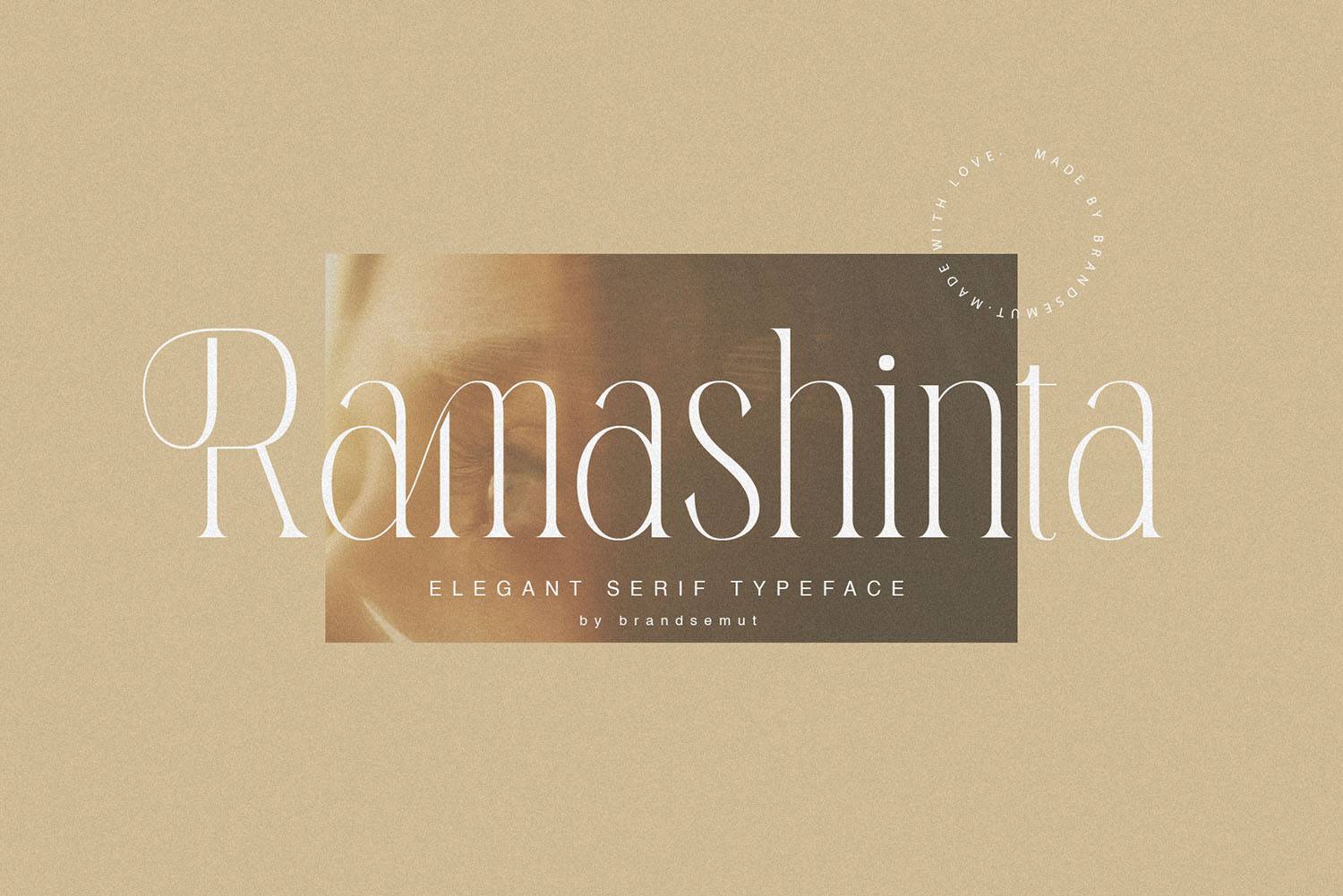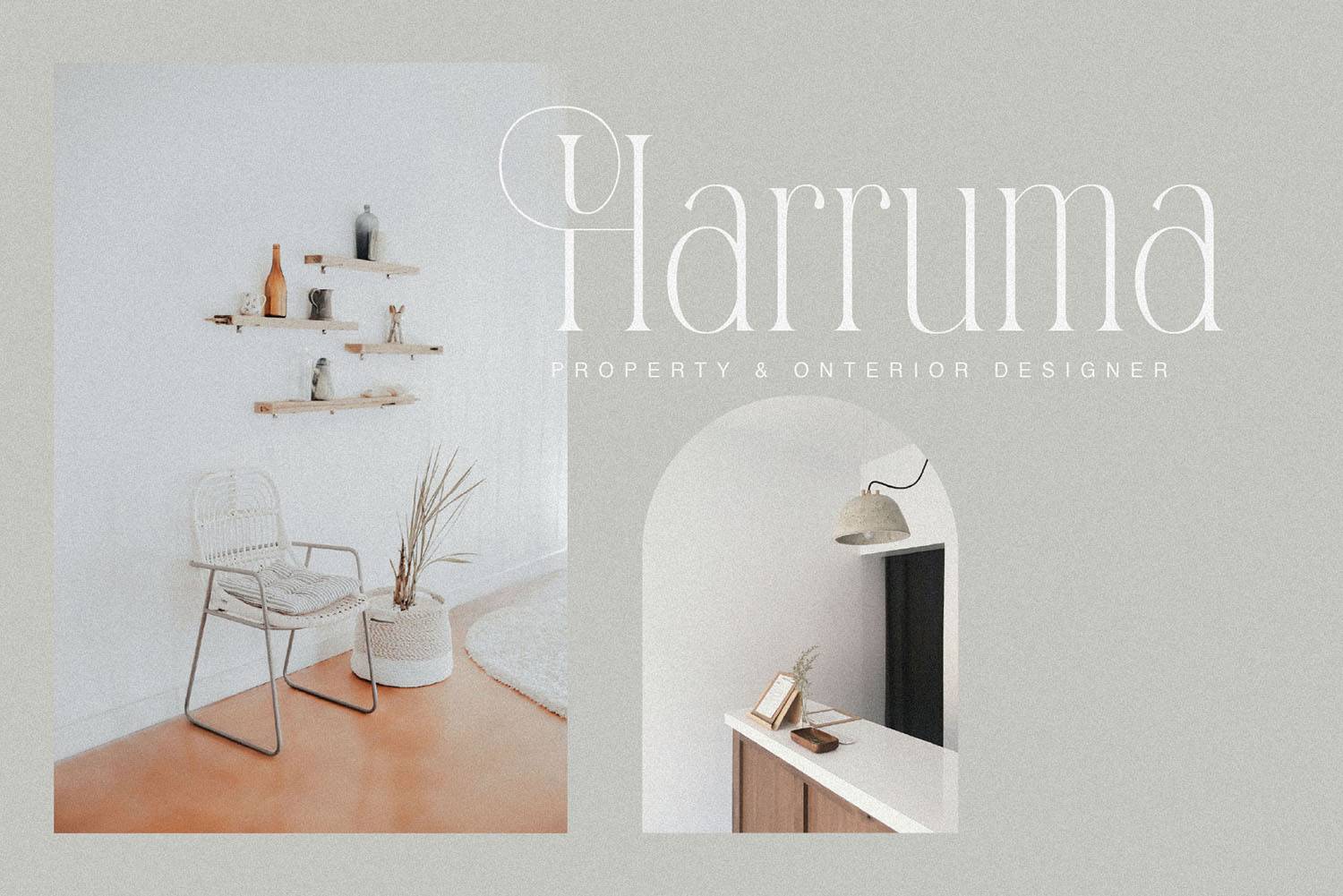
Ramashinta is an elegant serif font characterized by its tall, ultra-thin letterforms and high contrast between thick and thin strokes, giving it a refined and sophisticated appearance. Its delicate serifs and elongated proportions make it ideal for luxury branding, fashion editorials, and upscale headlines where a modern yet classic feel is desired. This font works best in large sizes to showcase its graceful details and stylish personality.
Ramashinta Font
About Ramashinta Font
| Font family | Ramashinta Font |
| Designer | Brandsemut |